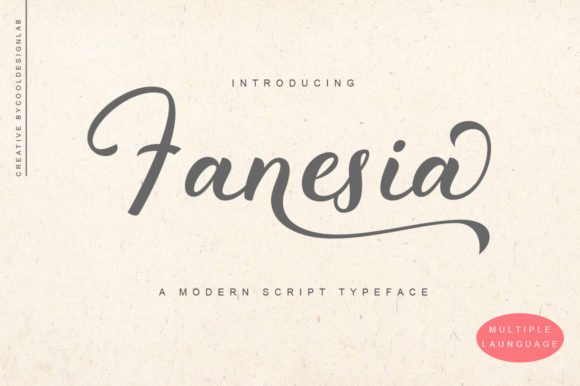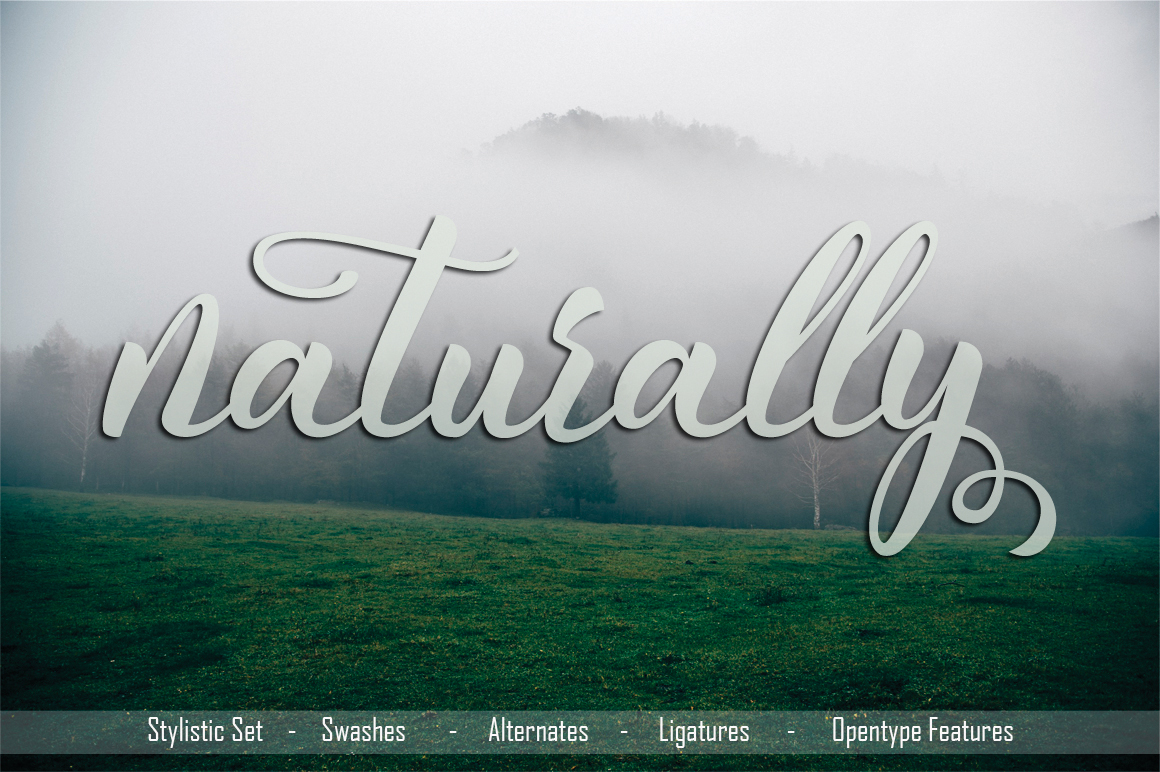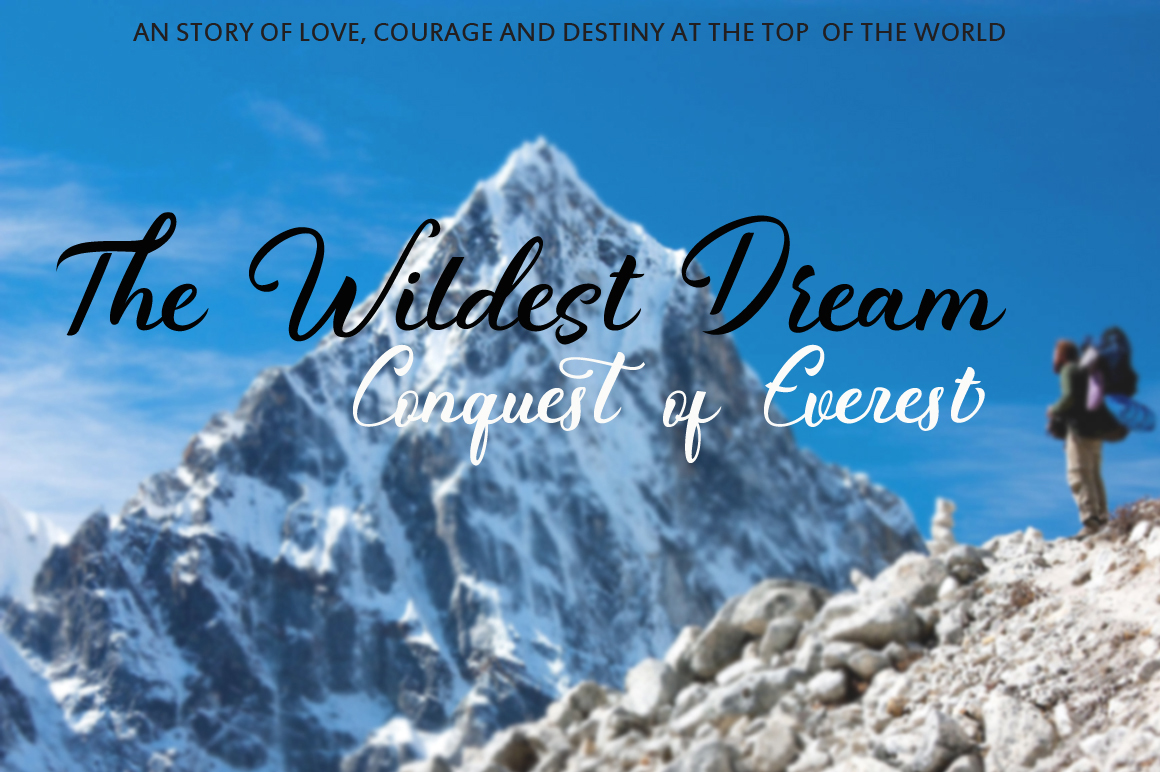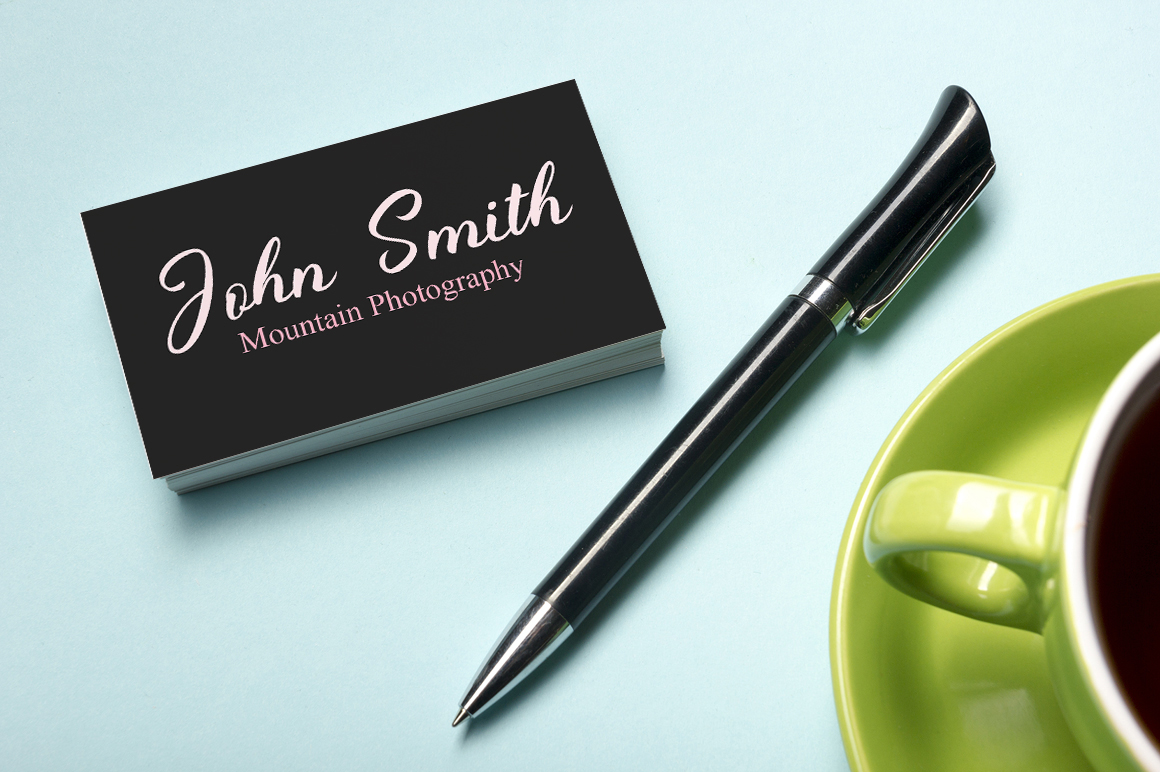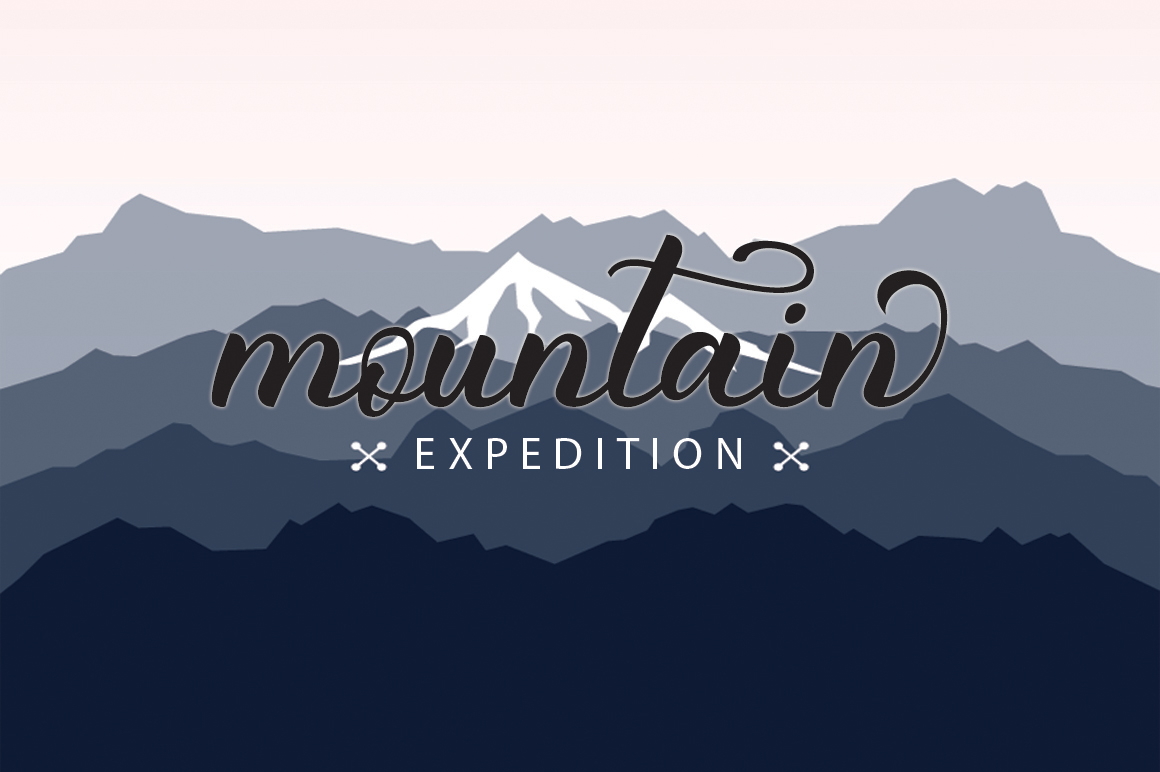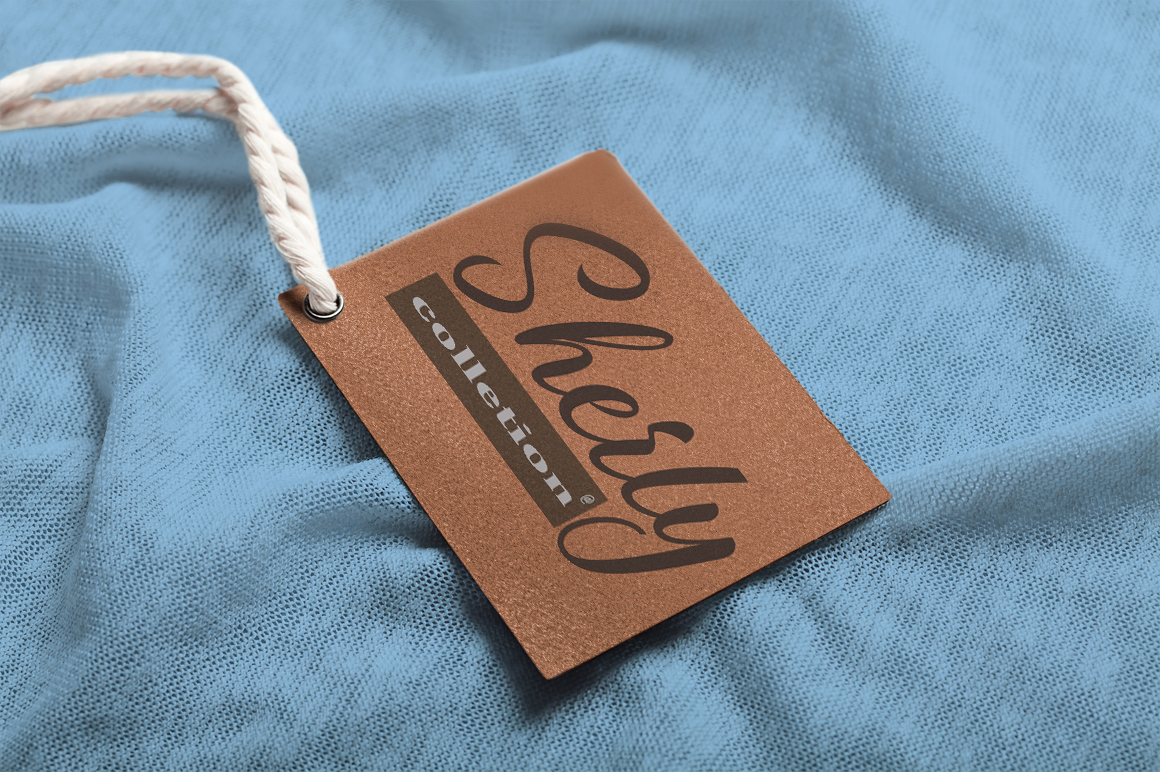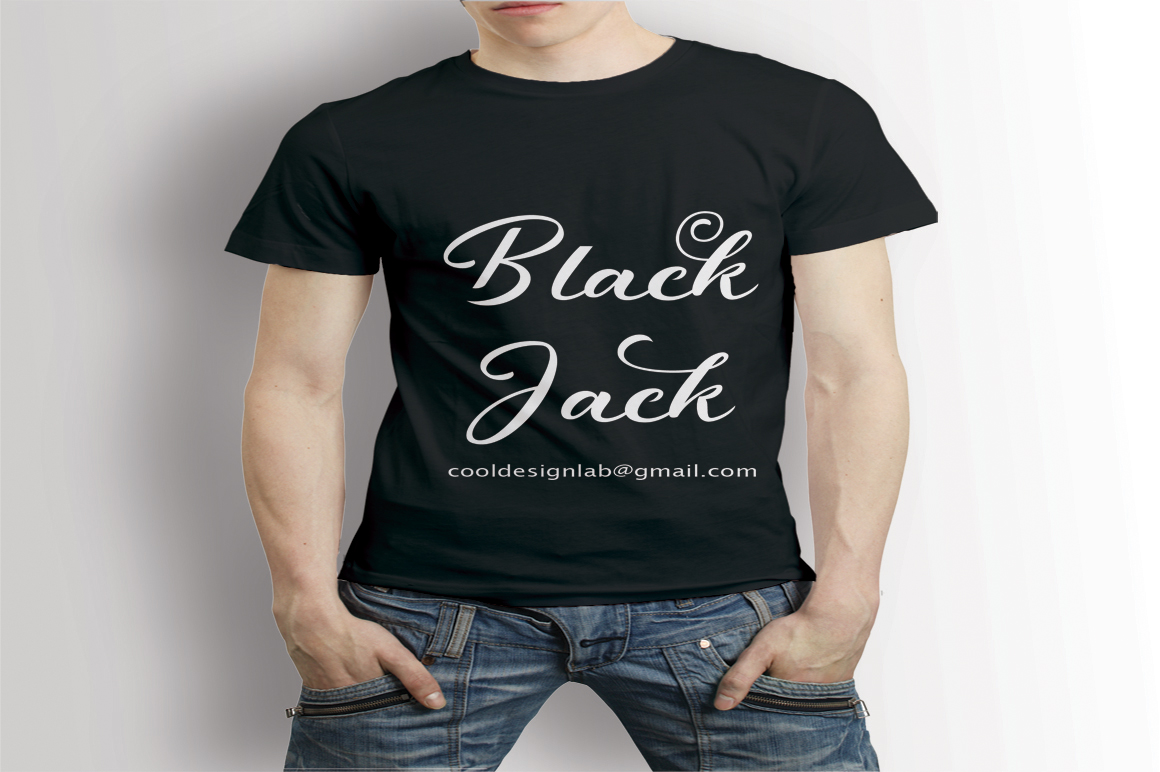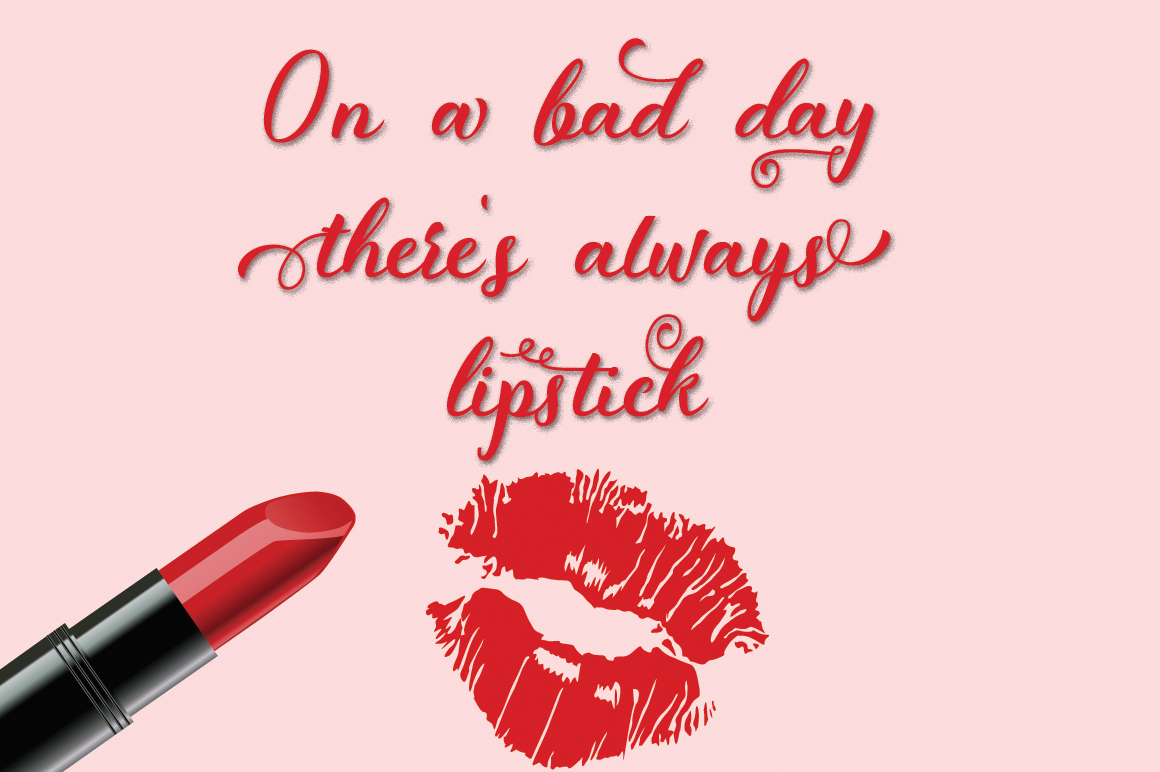
Fanesia Font
About Fanesia Font
Fanesia is a stunning handwritten script with classical roots. This beautiful formal script has an elegant touch, making it suitable for many types of designs, both formal and informal.
The Fenesia font features over 400 handmade glyphs and 237 alternate characters.